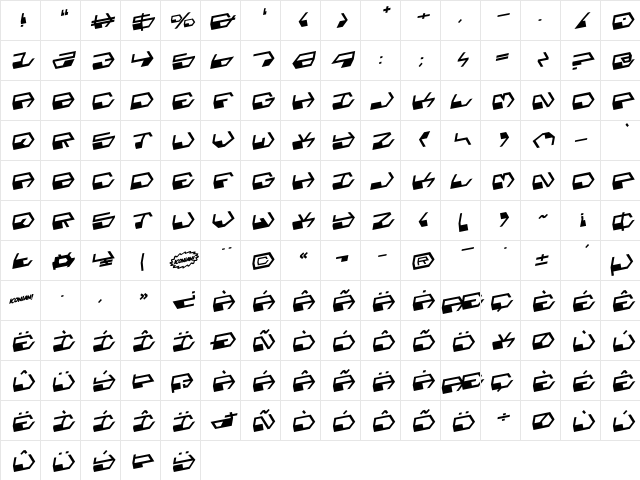
Complete Deranian Rotalic glyph index. Displaying only characters natively supported by Deranian Rotalic font.
Deranian is a composed and adaptable typeface that performs quietly and consistently across a wide range of design contexts.